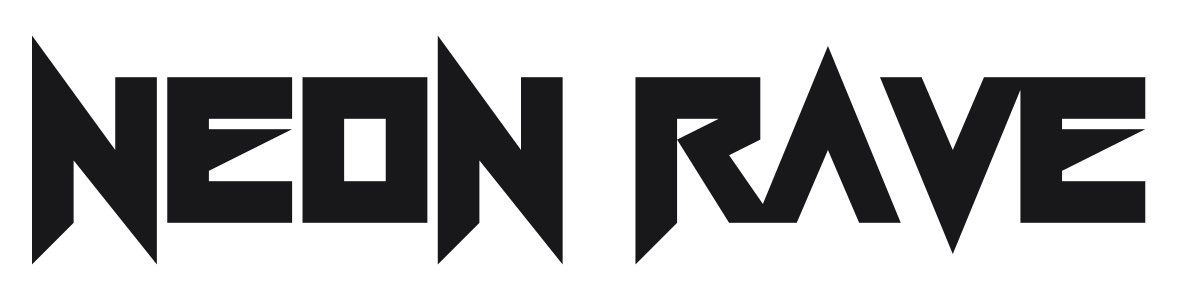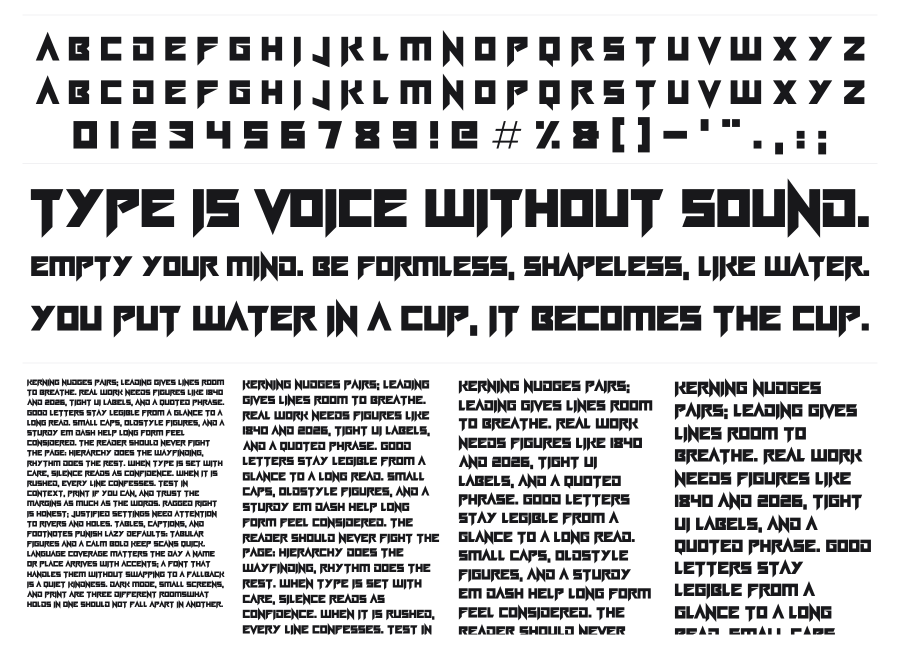
Neon Rave
Neon Rave is a bold angular display font built around sharp pointed terminals and dramatic triangular cuts that channel heavy metal and rave culture simultaneously. The characters sit wide and heavy with a near-monoweight stroke, but aggressive spike details at key points keep things far from conventional. Built for titles, posters, and anything that needs to feel loud.